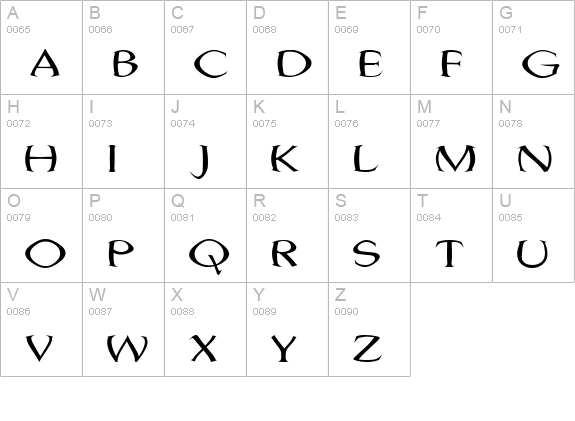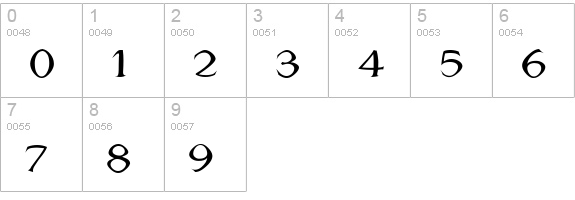
Jhunwest Convex Font Details
Jhunwest Convex font is a modern and stylish typeface that exudes sophistication and elegance. With its sleek lines and subtle curves, this font is perfect for adding a touch of class to any design project. The unique convex shape of the letters gives this font a distinctive and eye-catching look that is sure to make your text stand out. What's even better is that Jhunwest Convex font is completely free to download at FontsMarket.com. Whether you're working on a branding project, a website design, or any other creative endeavor, this font is a fantastic choice that won't cost you a thing. So why wait? Download Jhunwest Convex font today and elevate your designs with its sleek and sophisticated style.